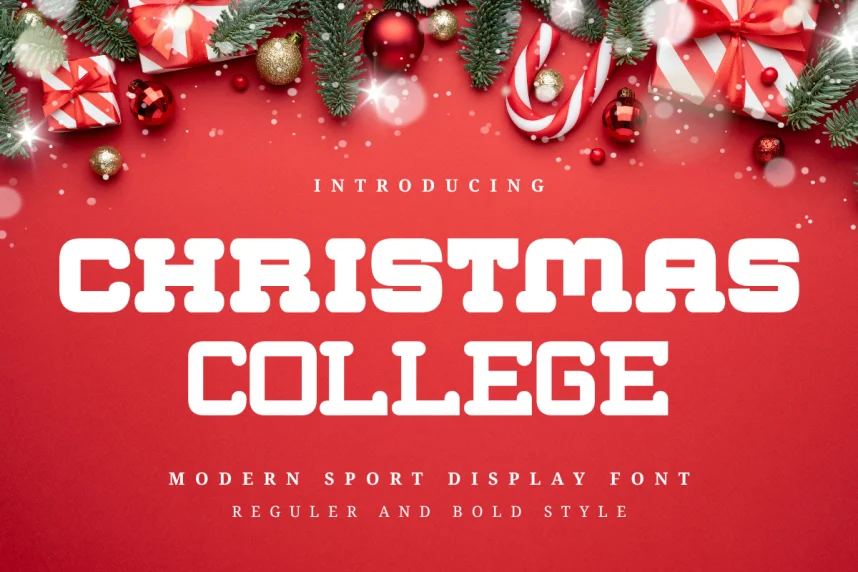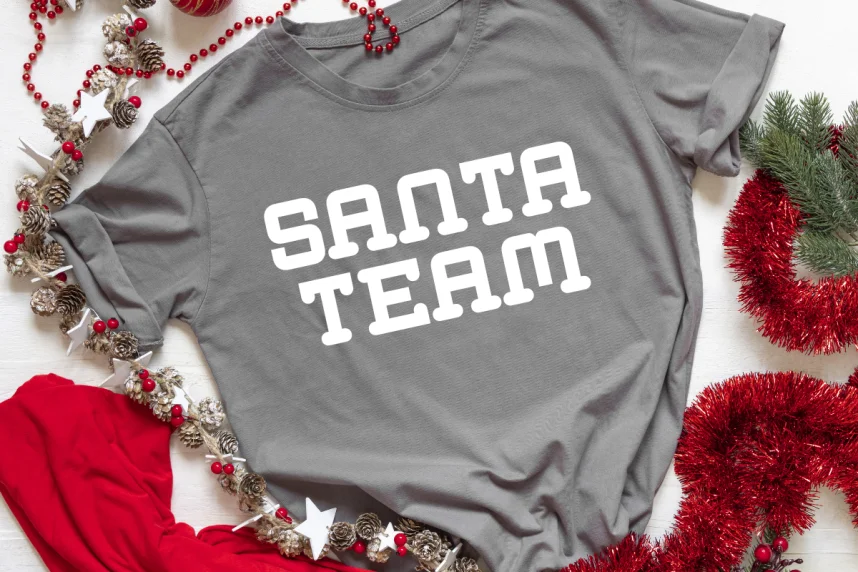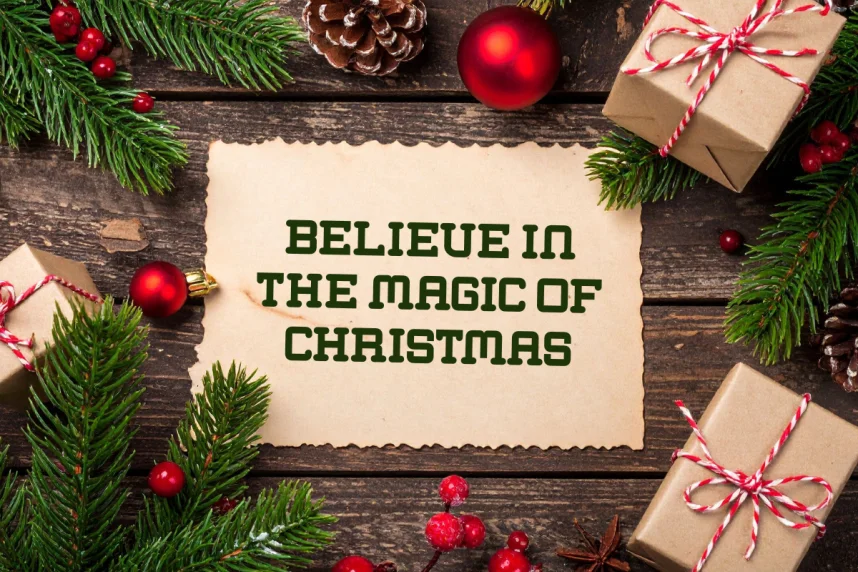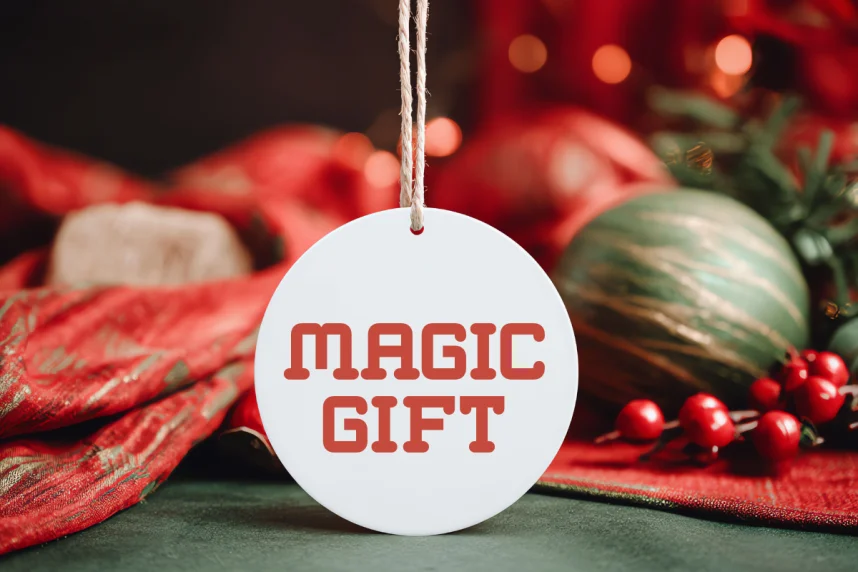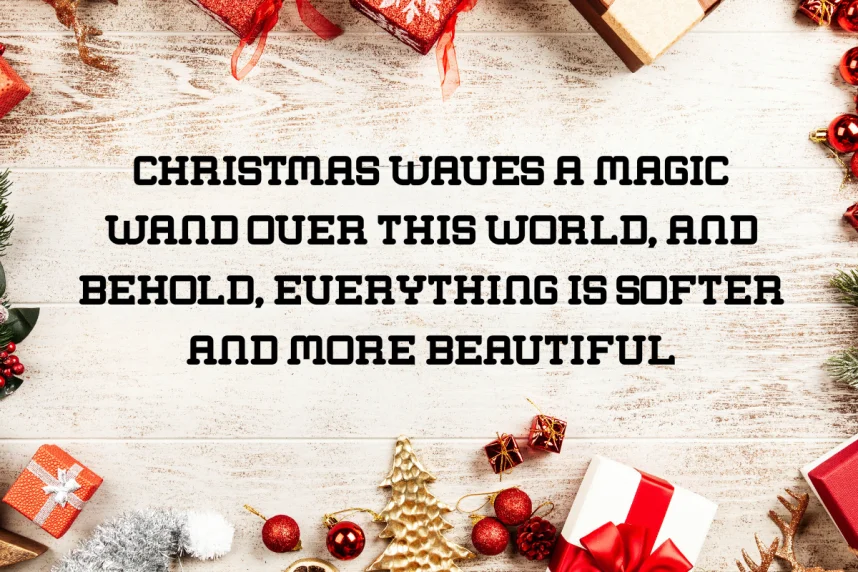
Christmas College Font supports designers creating holiday materials that need bold, readable lettering. Seasonal fonts often appear cluttered when used in signage or digital posts.
Christmas College Font is a display typeface inspired by collegiate lettering with festive styling. It features thick strokes, clear edges, and structured letterforms that remain legible at large sizes.